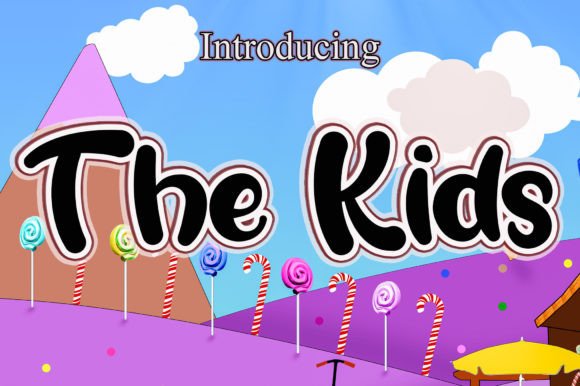
Step into the world of whimsy and delight with The Kids Font, a display font family that captures the essence of childhood wonder. Designed by the talented Ailil Design Studio, this font is a burst of nostalgia, evoking memories of simpler times. With its retro style, The Kids Font is the perfect choice for any design project that aims to bring a touch of playfulness and charm.
Crafted with meticulous attention to detail, this font boasts a wide range of characters, each meticulously shaped to exude a sense of carefree joy. As you type, you'll feel as though you're writing with a crayon, adding a dash of innocence and creativity to your words.
The Kids Font is not just any ordinary font; it's a gateway to a world of limitless imagination. Its bold, playful strokes dance across the page, inviting you to explore the vibrant realm of childhood dreams. Whether you're designing birthday invitations, book covers, or party banners, this font will infuse your work with a sense of timeless wonder.
Imagine the smiles on your children's faces as they receive a birthday invitation adorned with The Kids Font. The bright colors and cheerful characters will instantly transport them to a world of laughter and excitement. Or envision the joy of a child delving into a book with a cover designed using this font, their eyes sparkling with curiosity as they embark on a literary adventure.
With The Kids Font, you can create designs that resonate with the hearts of children and adults alike. Its whimsical charm will evoke feelings of nostalgia and happiness, leaving an unforgettable impression on all who see it. So, let your creativity soar and dive into the world of The Kids Font, a font family that will transform your designs into enchanting works of art.